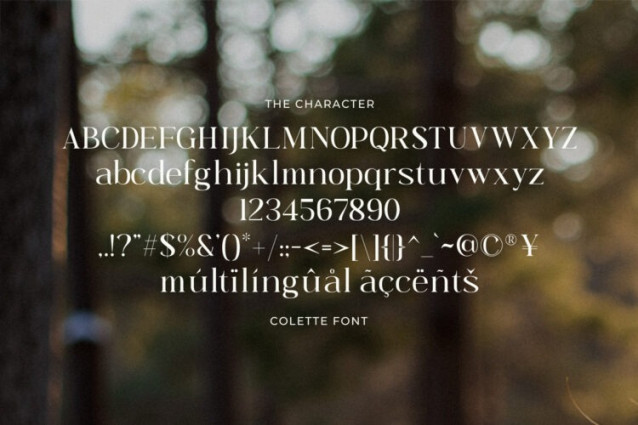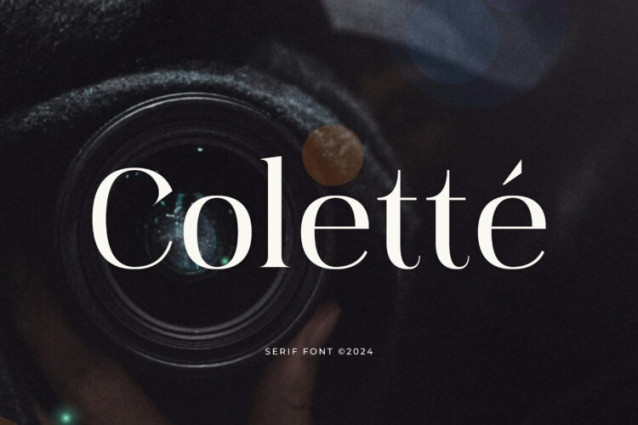
Colette Font
Colette Font is a refined serif typeface designed to captivate viewers with its modern elegance and timeless charm. The font’s subtle curves and fine details create the perfect balance between classic and contemporary style. Ideal for branding, editorial layouts or luxury designs, Colette brings a sophisticated and professional feel to any project.